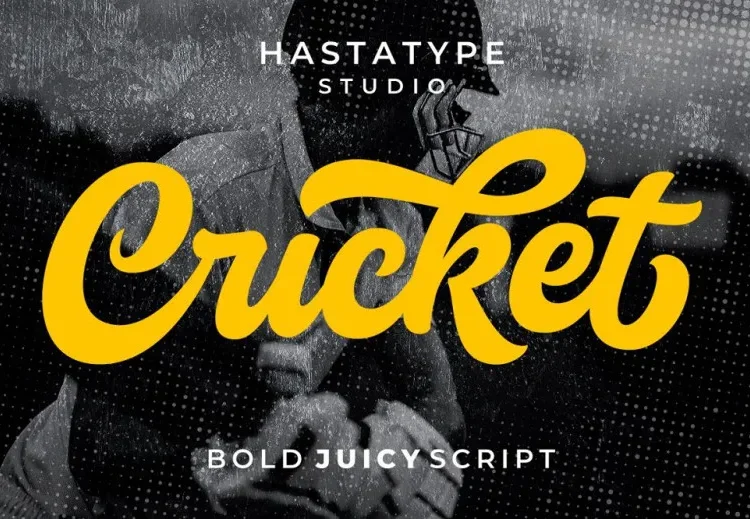
Cricket Font
Let me introduce Cricket, a modern and edgy script font that exudes sophistication and vitality, making it an excellent choice for designing emblem logos. Cricket is designed to add a dynamic flair to logos and branding projects, providing an extra wow factor with its playful yet elegant style. It is particularly well-suited for tech companies, fashion brands, and artsy projects that require a touch of both creativity and professionalism.
Cricket’s versatile and daring design ensures that it stands out while maintaining a polished appearance. This font is ideal for various applications, including logos, captions, taglines, posters, book covers, banners, and any project that demands a classy, eye-catching typeface.